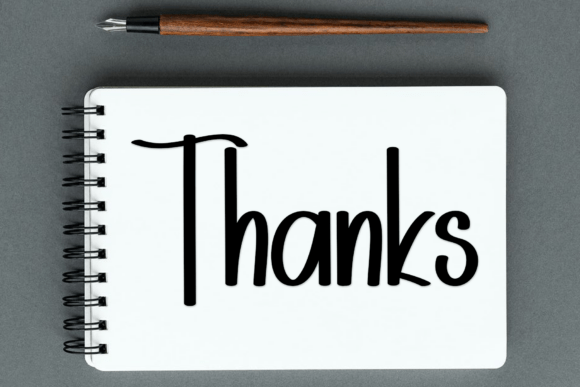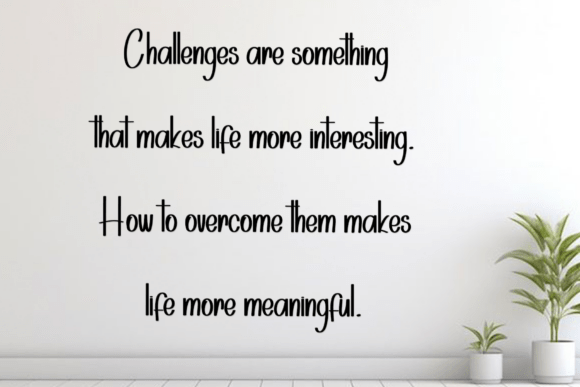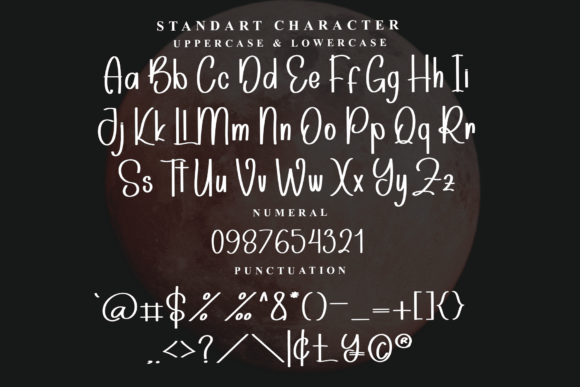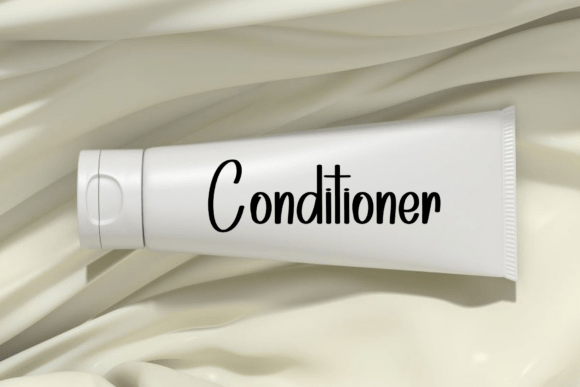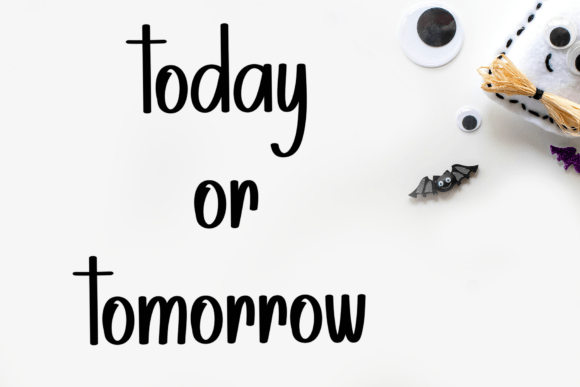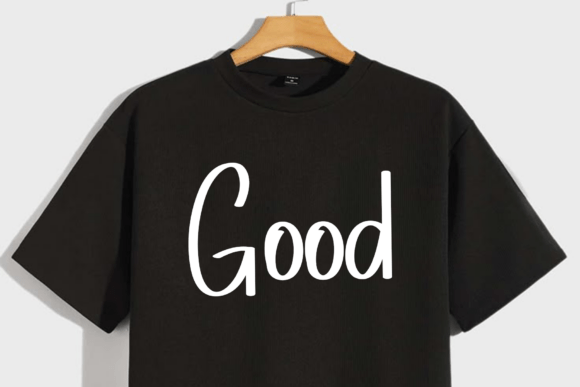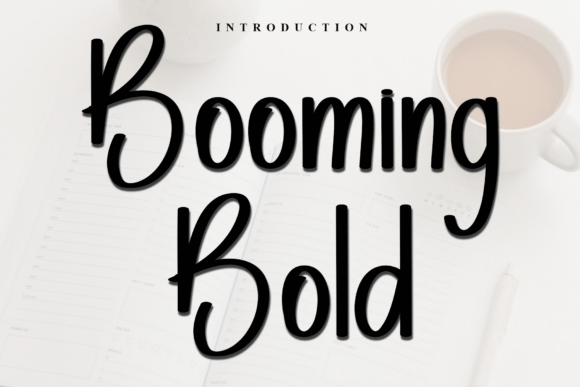
Introducing Booming Font: Elevate Your Designs with a Unique and Eye-Catching Style
In the world of typography, a font can make or break a design. It’s the perfect blend of form and function, conveying a message while captivating the audience. If you’re a designer, crafter, or creative looking for a font that stands out from the crowd, look no further than Booming Font. This beautiful and eye-catching font is designed with a soft, unique touch that will take your designs to the next level.
The Distinctive Character of Booming Font
Booming Font boasts distinctive strokes that give it a special character, making it both meaningful and versatile for future use. Its unique design ensures that your creations will be instantly recognizable, setting them apart from the ordinary. Whether you’re working on a design project, craft, or other creative work, Booming Font is the perfect choice.
A World of Creative Possibilities
One of the standout features of Booming Font is its versatility. With a wide range of characters, you can experiment with various styles and combinations to bring your vision to life. This font is perfect for:
- Design projects: From brochures to posters, Booming Font adds a touch of elegance and sophistication.
- Crafts: Whether you’re creating handmade cards, gift tags, or scrapbooking pages, this font is a great addition to your toolkit.
- Creative works: Use Booming Font to add a personal touch to your art, illustrations, or graphic designs.
This font’s flexibility ensures that it will become a go-to choice for all your creative endeavors.
Seamless Compatibility
Enhance Your Designs with Booming Font
So, what sets Booming Font apart from other fonts on the market? Here are just a few reasons why it’s a game-changer for designers and crafters:
- Natural font style: Booming Font has a natural, organic feel that resonates with audiences across different artistic and creative fields.
- Wide range of products: From digital designs to print materials, Booming Font is ideal for a wide range of products, ensuring that your creations look great in any context.
- Appeal to diverse audiences: With its unique and eye-catching style, Booming Font appeals to many audiences, making it perfect for designs that need to resonate with a broad spectrum of people.
By incorporating Booming Font into your designs, you’ll create visually stunning creations that capture attention and leave a lasting impression.
Get Creative with Booming Font
- Experiment with different characters and styles to find the perfect combination for your project.
- Use Booming Font in your design projects, crafts, and creative works to add a unique touch.
With Booming Font, the possibilities are endless. Unlock your creative potential and discover a world of typographic possibilities.
In conclusion, Booming Font is a beautiful and eye-catching font designed to elevate your designs with its unique and soft touch. Its distinctive strokes, versatility, and seamless compatibility make it a valuable addition to any designer’s or crafter’s toolkit. Whether you’re working on a design project, craft, or creative work, Booming Font is the perfect choice. So why wait? Download Booming Font today and experience the power of typography in your designs.